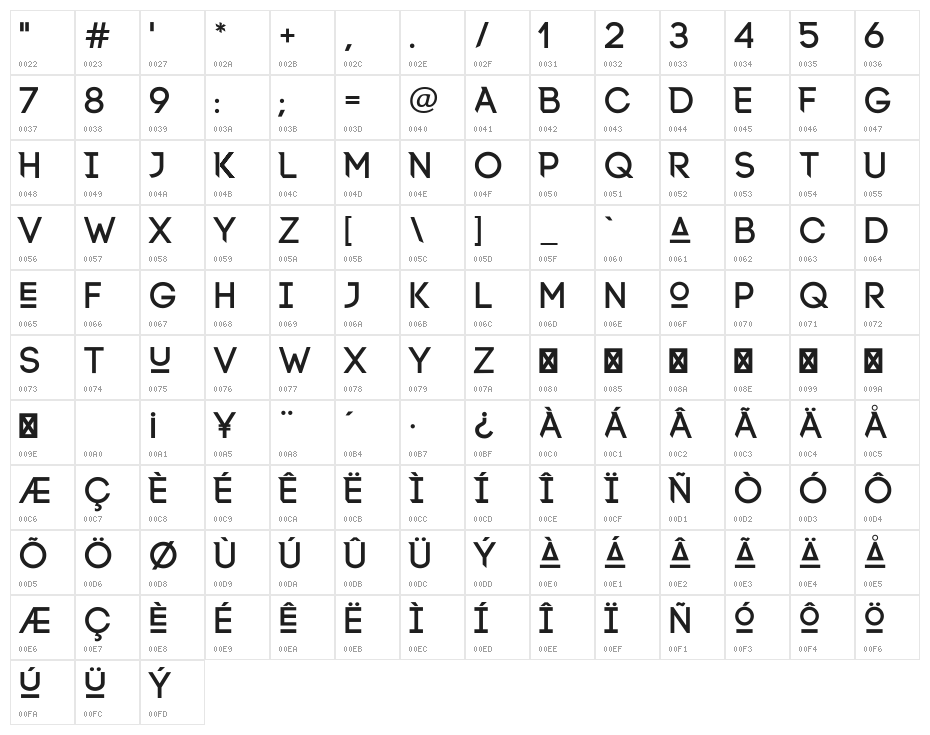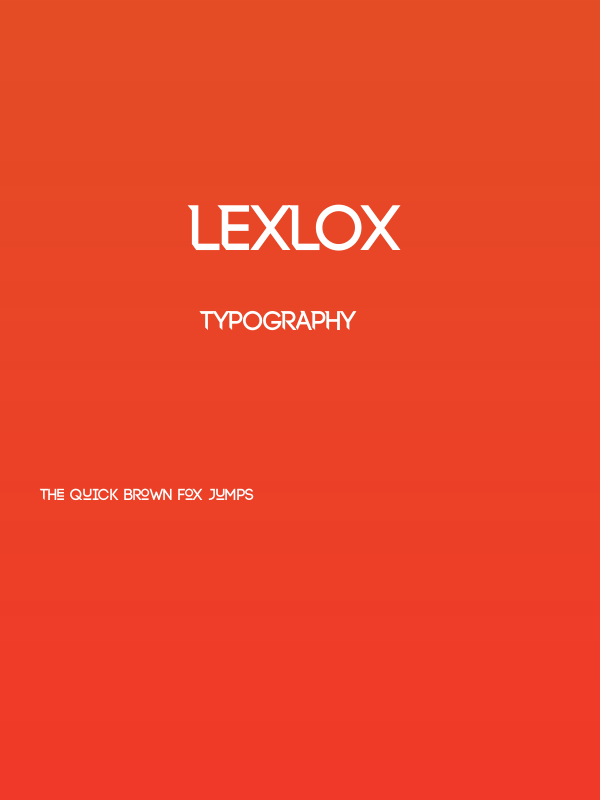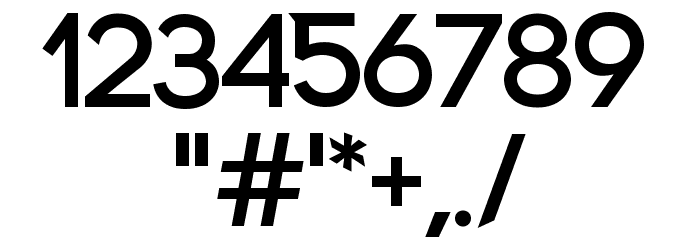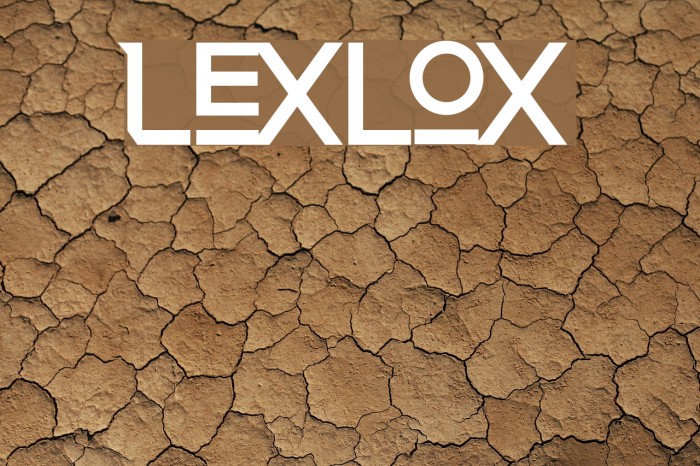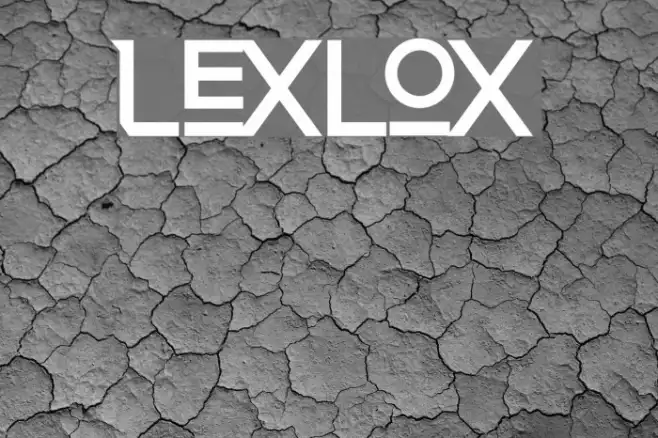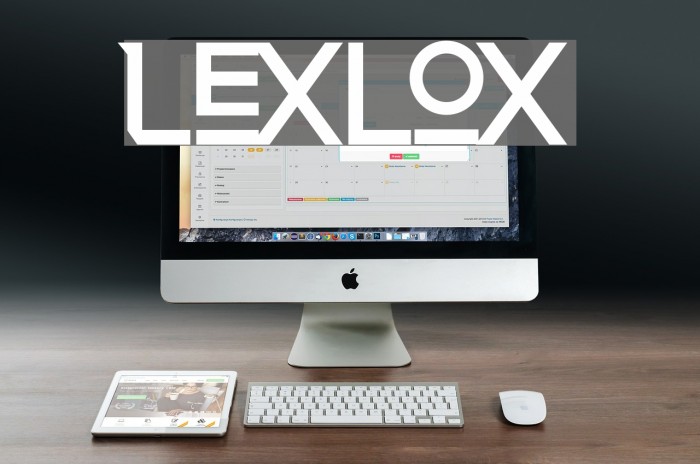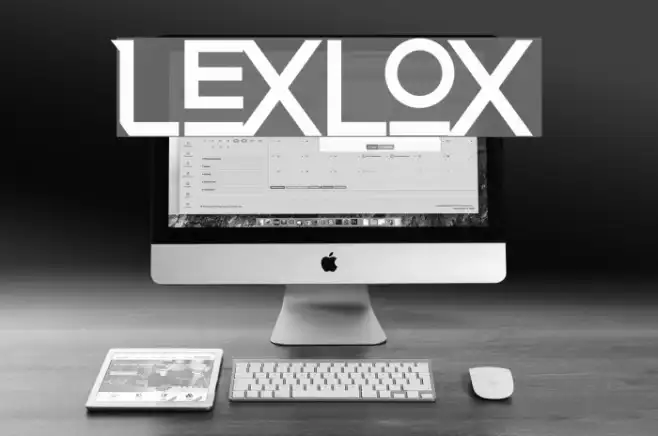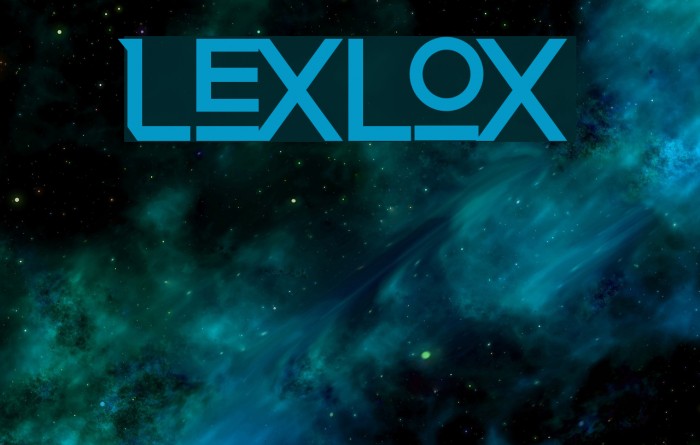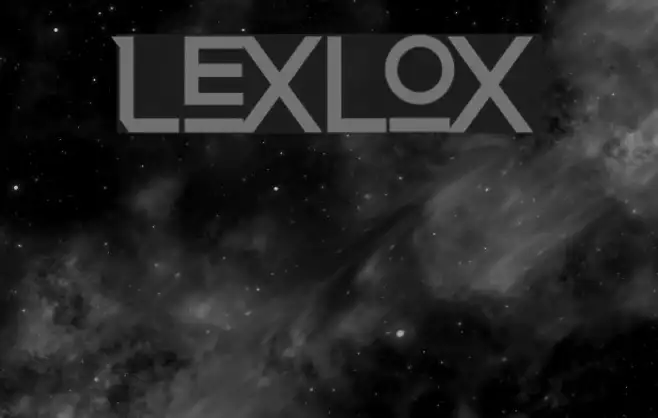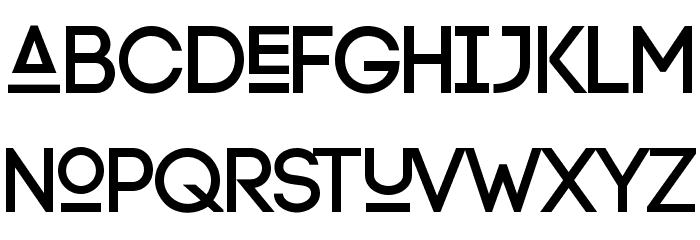
Lexlox Font
Lexlox Description
This font features a bold and geometric design with a modern twist. The characters are constructed with clean, straight lines and sharp angles, giving it a futuristic and edgy appearance. The uppercase letters are particularly striking, with unique cutouts and slashes that add a distinctive flair. The numerals are equally bold, maintaining the geometric theme with consistent stroke widths. Special characters are designed to complement the overall style, ensuring a cohesive look across all text elements. This font is ideal for making a strong visual impact.